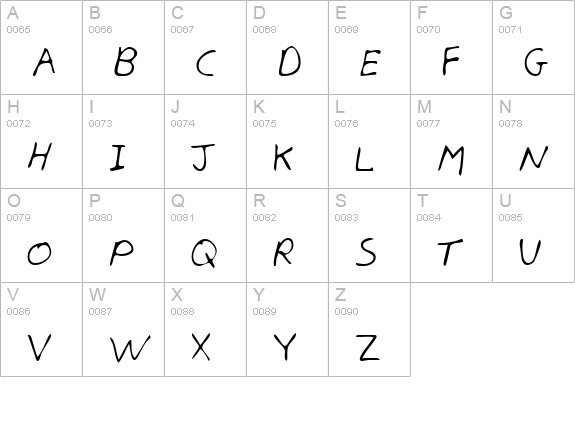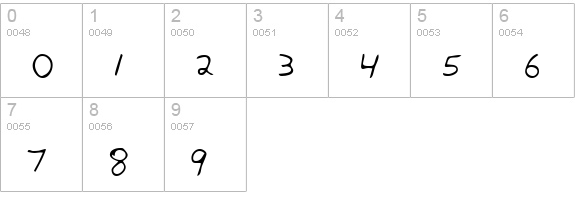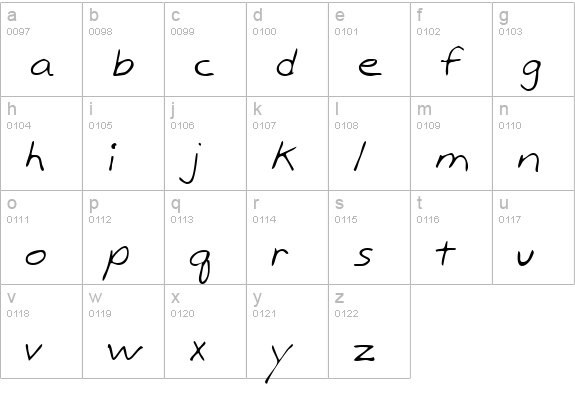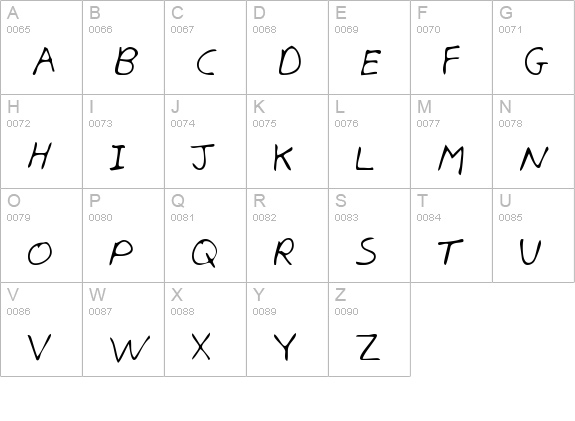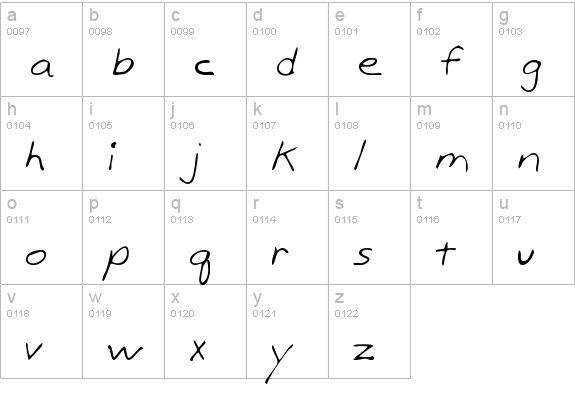
KramersHand Regular is the standard, neutral variant in the KramersHand typeface family \xE2\x80\x94 well suited to general body text, paragraphs, and standard typographic work.
KramersHand Regular font is a charming and versatile typeface that exudes warmth and creativity. Its handwritten style adds a personal touch to any project, making it perfect for invitations, greeting cards, posters, and more. With its natural flow and unique character, KramersHand Regular stands out while maintaining an approachable and friendly appearance. The best part? KramersHand Regular font is available for free download at FontsMarket.com. Now you can easily add this delightful font to your design arsenal without any cost. Whether you're a designer looking for a fresh font to elevate your work or a hobbyist seeking to enhance your creative projects, KramersHand Regular is the perfect choice. Download it today and start adding a touch of handmade charm to your designs!